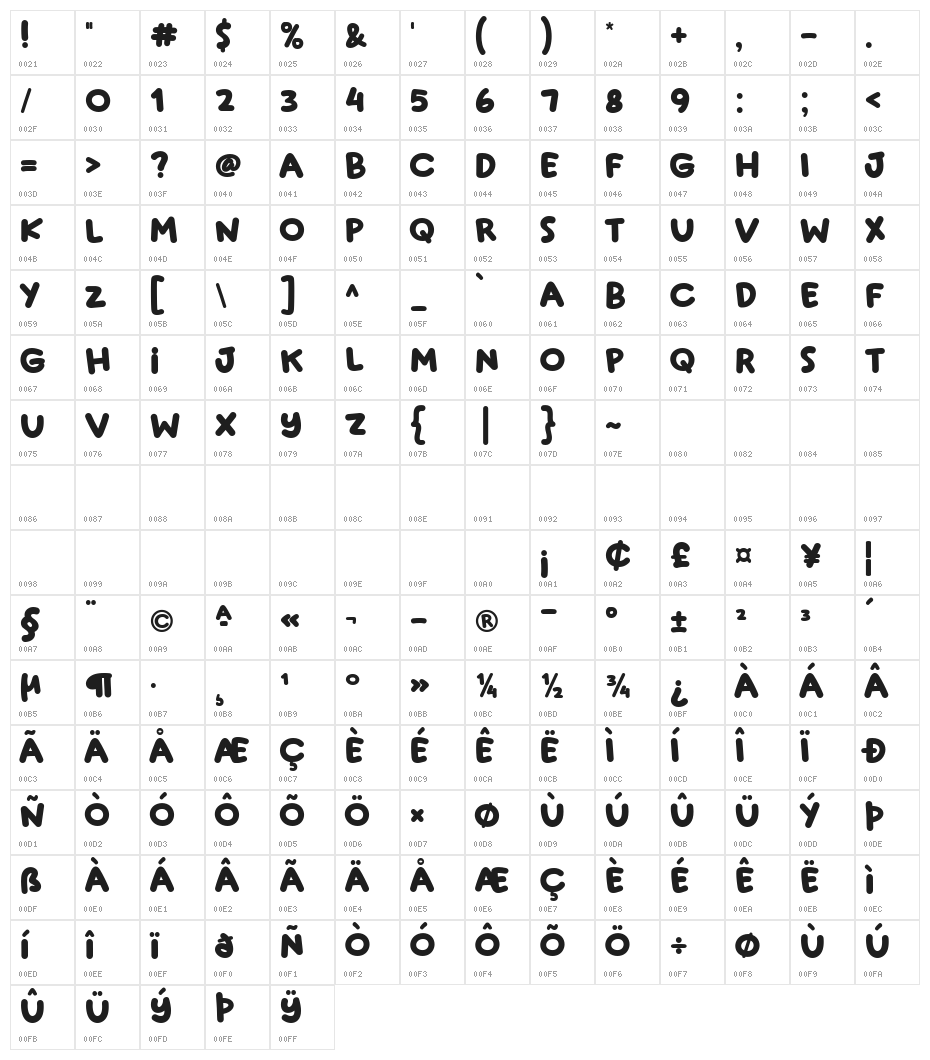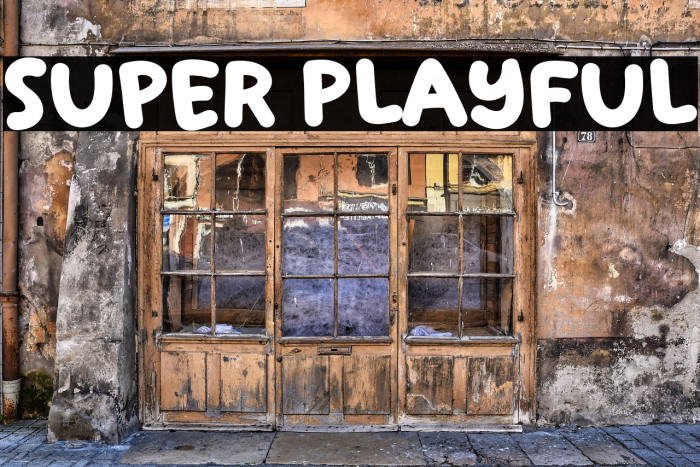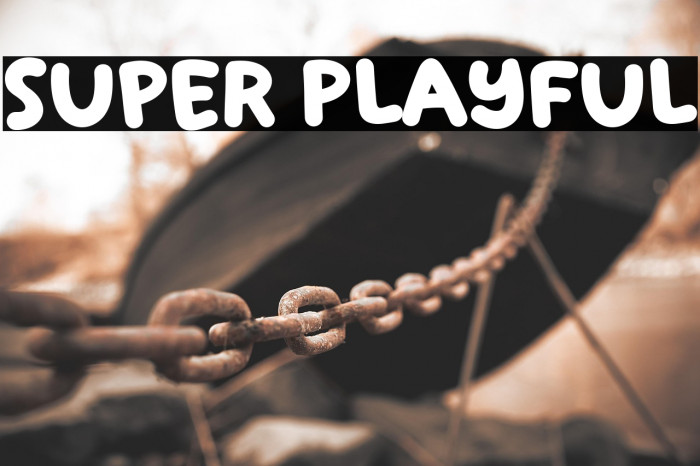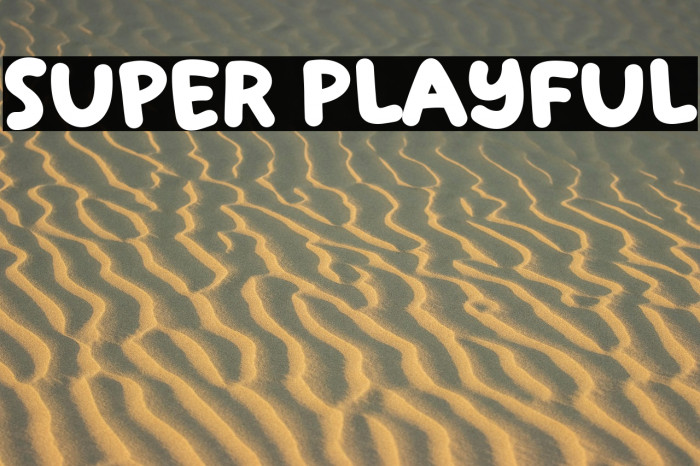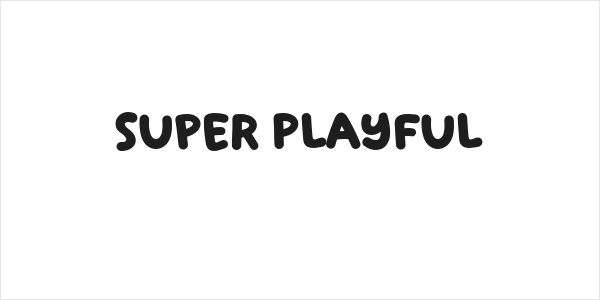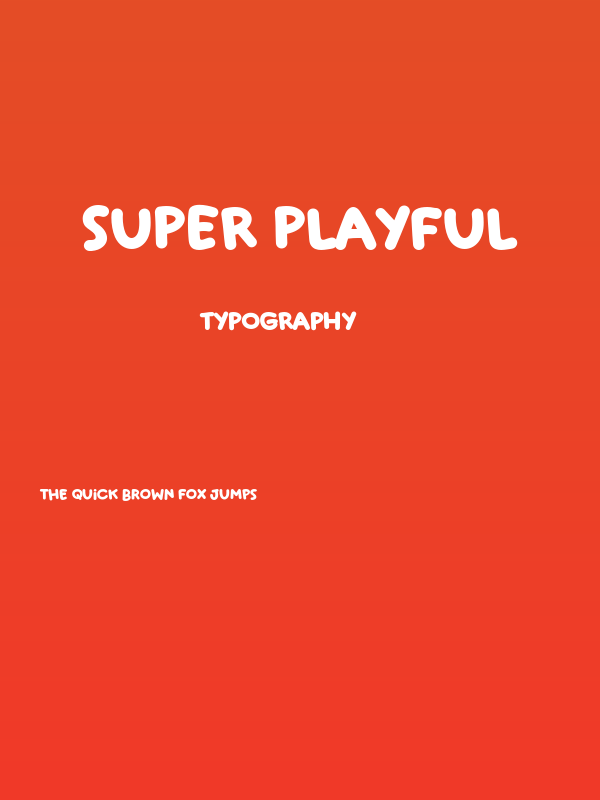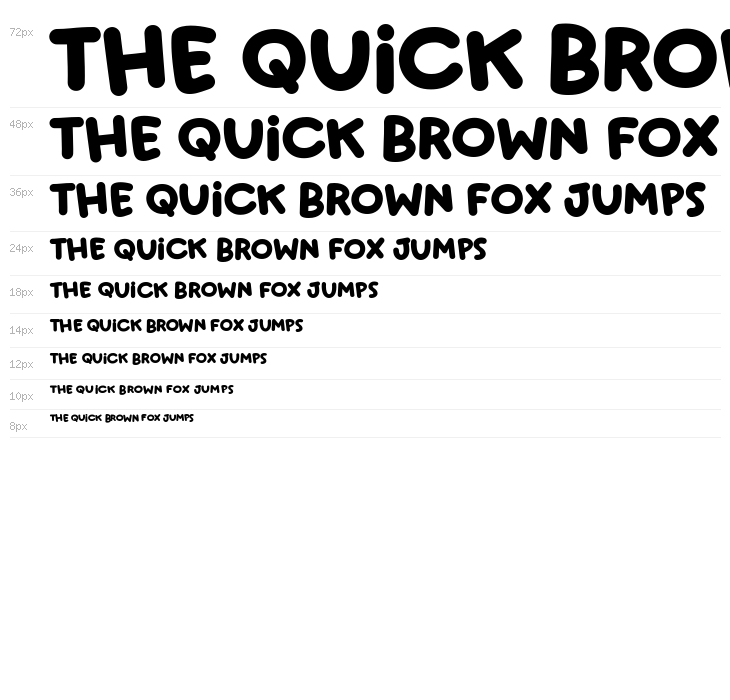
Super Playful Font
Super Playful Description
This font exudes a playful and energetic vibe, characterized by its bold and rounded letterforms. The strokes are thick and uniform, giving it a strong presence while maintaining a friendly and approachable appearance. The characters are slightly irregular, adding a whimsical touch that enhances its playful nature. The font's design is consistent across uppercase, lowercase, and numerals, ensuring readability and cohesion. Its boldness makes it stand out, ideal for capturing attention in various design contexts. The spacing between characters is balanced, neither too tight nor too wide, which aids in readability without compromising its playful aesthetic.
| Proposed Projects | Ideal for children's books, playful branding, casual invitations, and fun posters. |